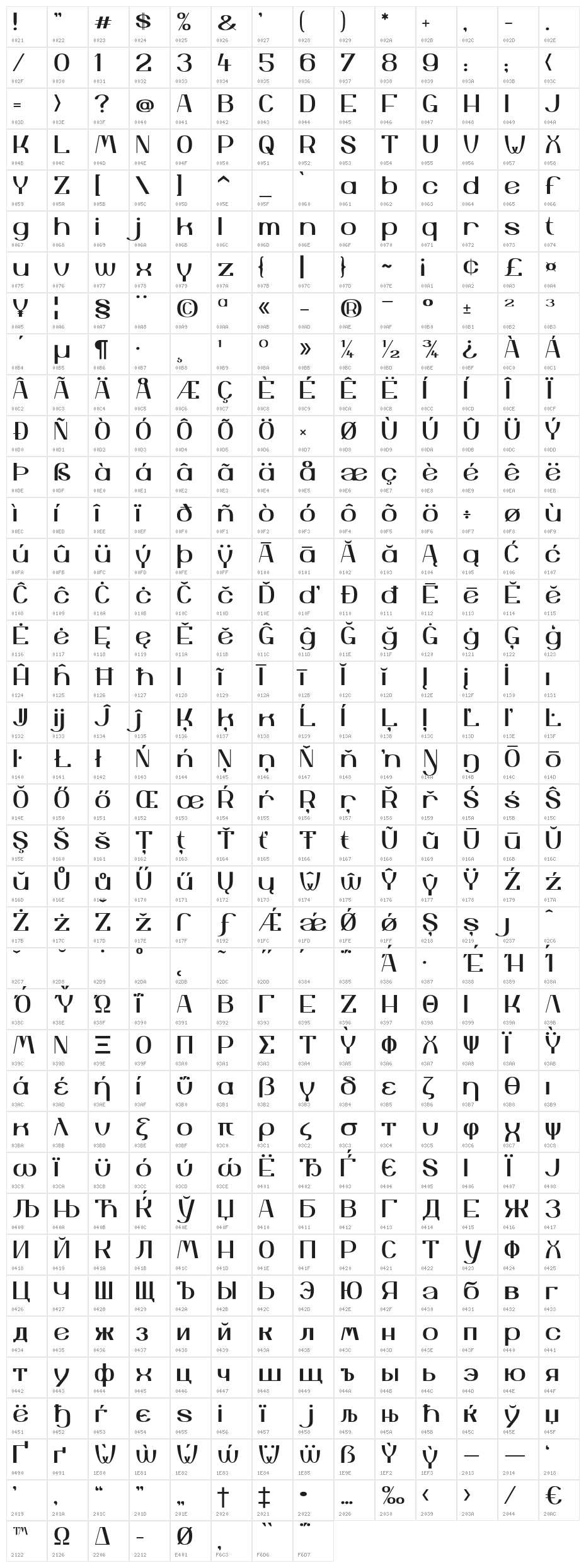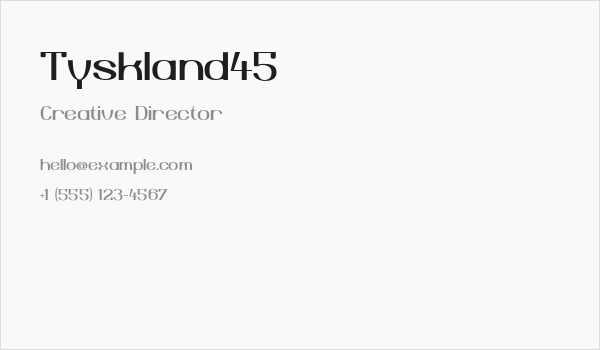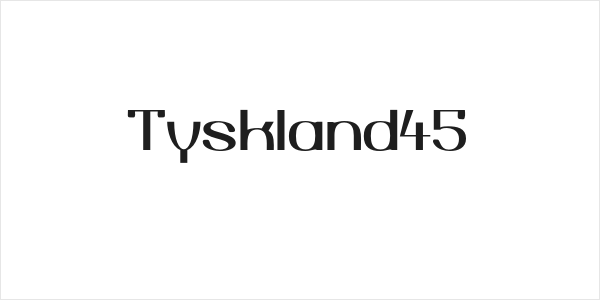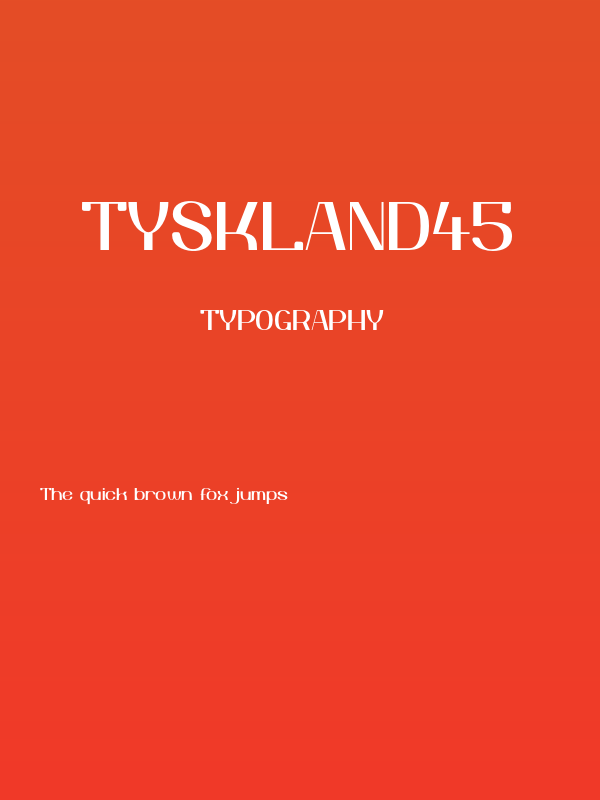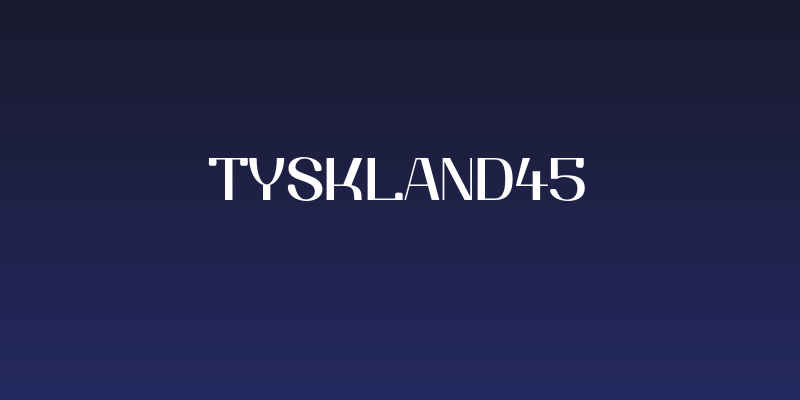
Tyskland45 Font
Tyskland45 Description
This font features a unique blend of modern and classic elements, characterized by its bold and geometric letterforms. The uppercase letters exhibit a strong presence with distinct, sharp angles and a slight curvature that adds a touch of elegance. The lowercase letters maintain a consistent style, offering a harmonious balance between readability and artistic flair. The numerals are bold and clear, ensuring easy legibility. Special characters are designed with the same attention to detail, providing a cohesive look across all glyphs. The overall style is both contemporary and versatile, making it suitable for a variety of design applications.